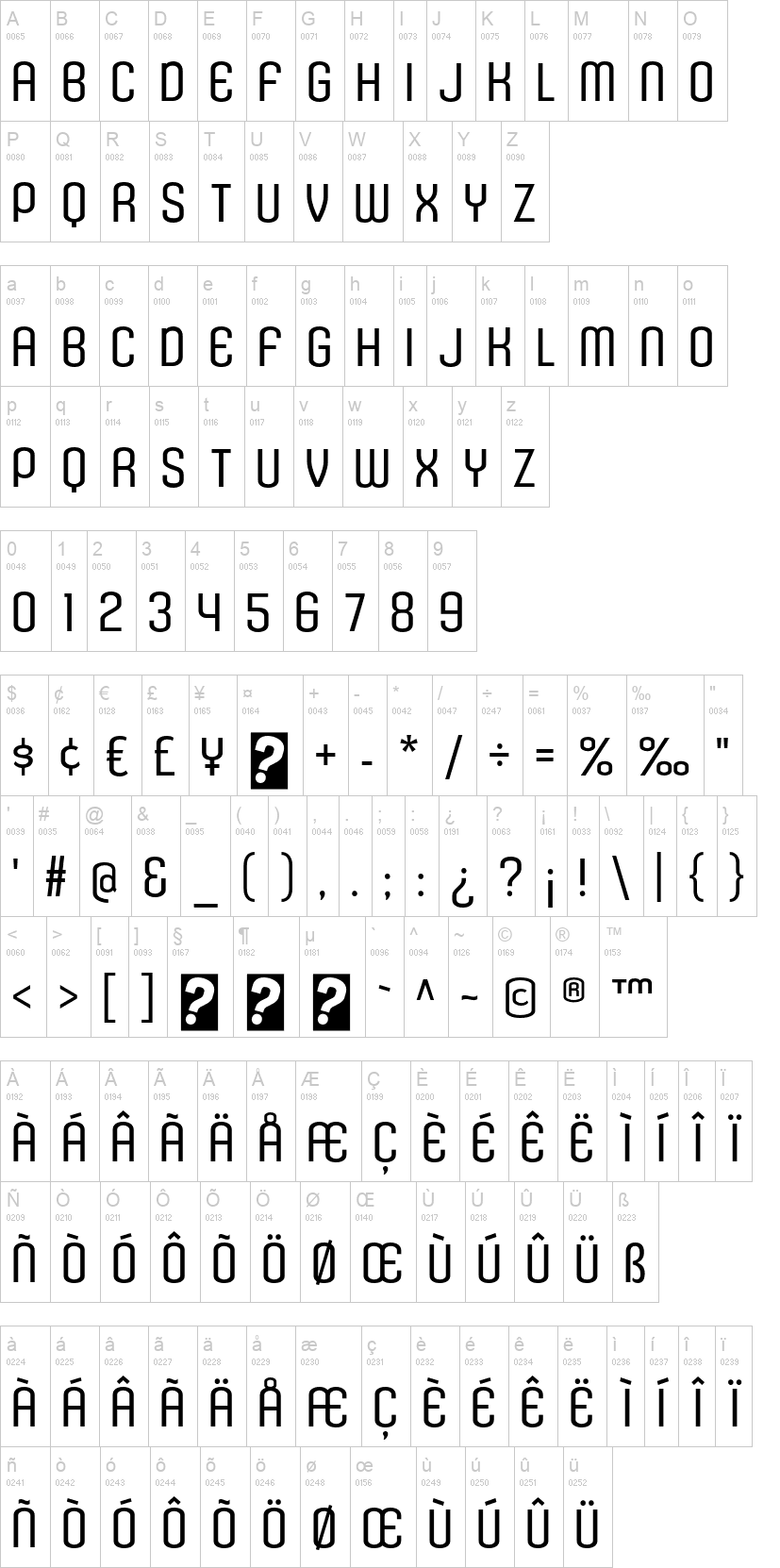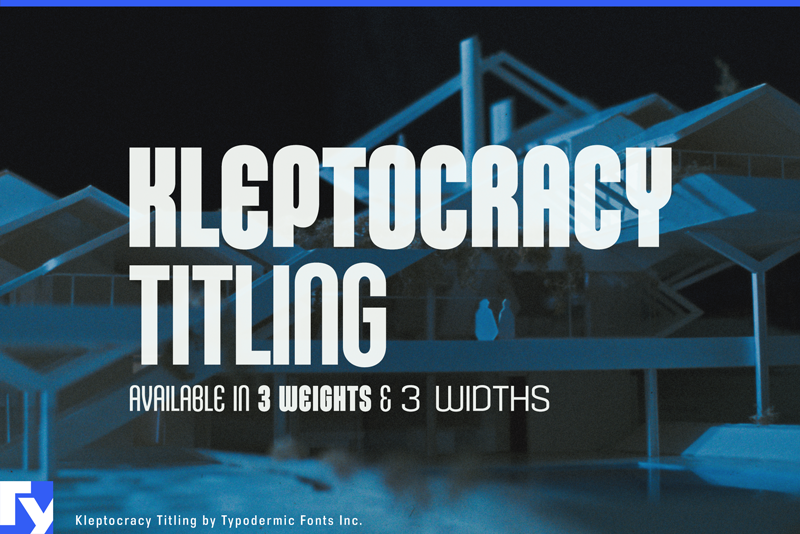
kleptocracy titling cd rg.otfkleptocracy titling cd bd.otfkleptocracy titling lt.otfkleptocracy titling rg.otfkleptocracy titling bd.otfkleptocracy titling ex lt.otfkleptocracy titling ex rg.otfkleptocracy titling ex bd.otfNote of the authorKleptocracy purrs where other factory-made fonts rattle and buzz thanks to assembly line efficiency tempered with softly rounded curves. Kleptocracy comes in three weights and three widths. For a version with lowercase, look for the full version of Kleptocracy from Typodermic Fonts.